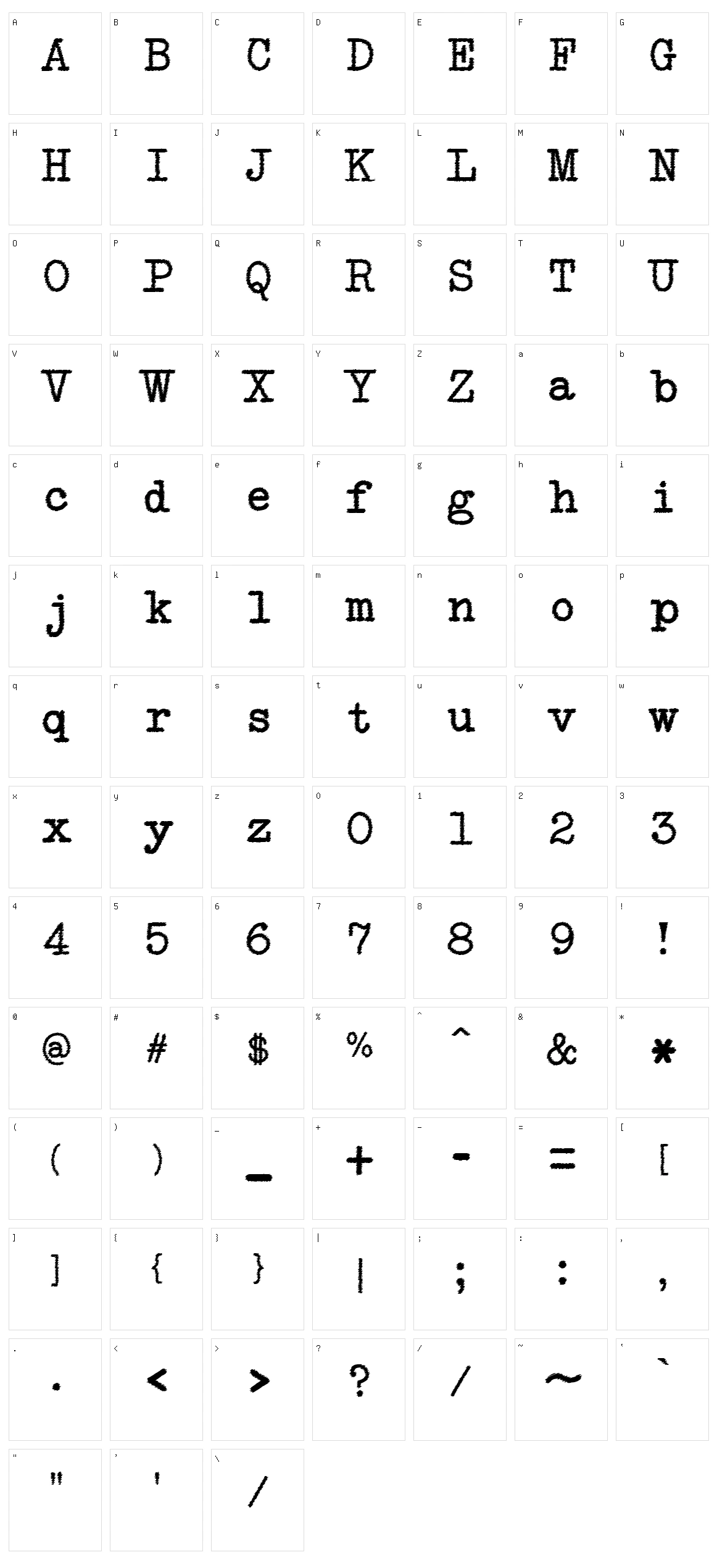
The free font NeoBulletin Trash is carefully designed by Intellecta Design, showcasing a thoughtful balance of creativity and usability and falls under the Typewriter font style. When you download the ZIP file, it contains only 782.3 KB of font files, making it lightweight and quick to download. Please review the license details below to understand permitted usage and distribution rights. If license information is not available, we recommend using this font for personal projects only or contacting the author directly for commercial usage permissions.